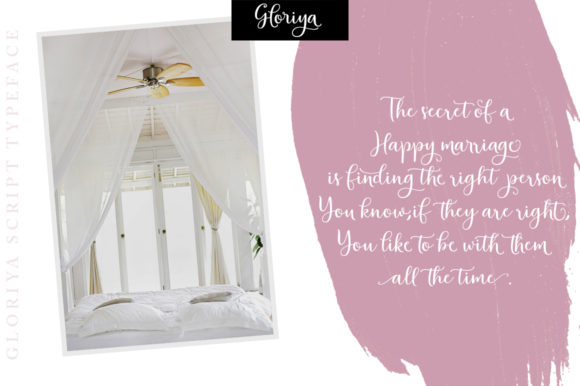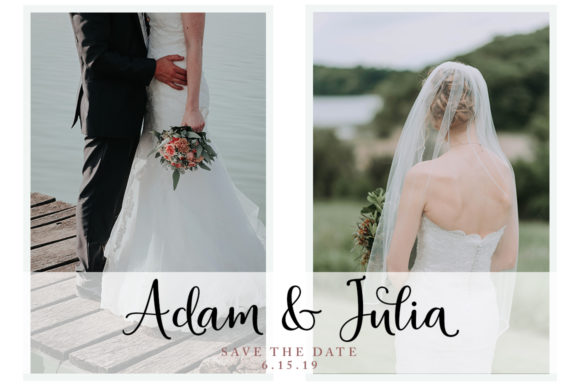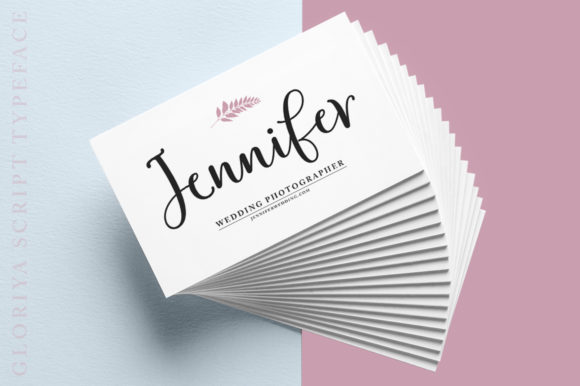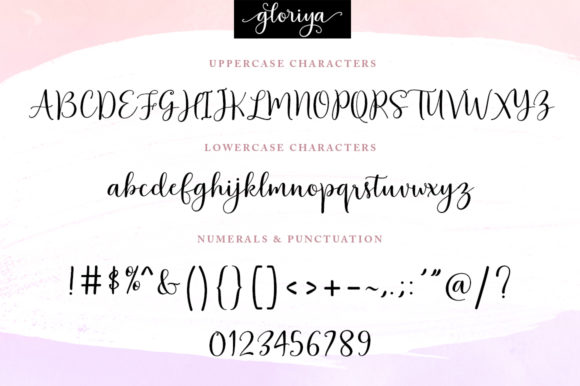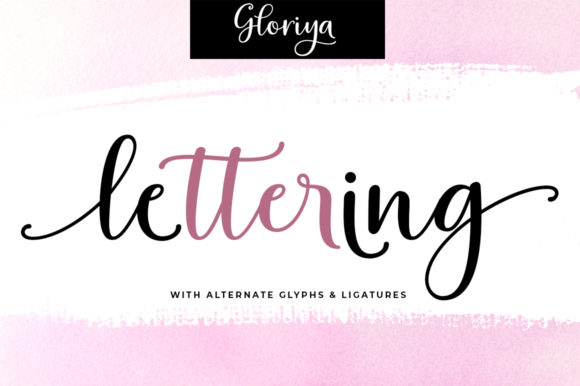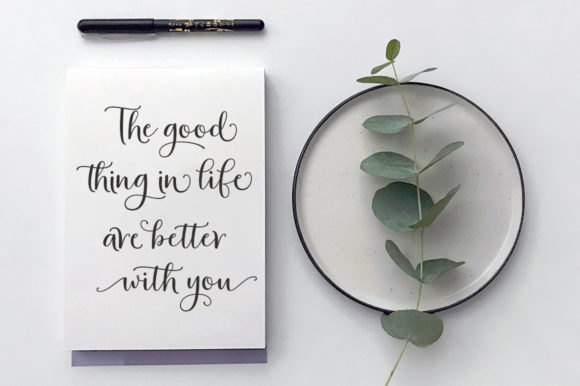
Gloriya Font: The Sweet and Soft Hand-Lettered Script Font for Your Creative Projects
Are you looking for a font that can add a touch of elegance and sweetness to your creative projects? Look no further than Gloriya Font, a beautiful hand-lettered script font that is perfect for a variety of applications. In this article, we’ll take a closer look at Gloriya Font, its features, and how you can use it to create stunning wedding invitations, stationery art, social media posts, and greeting cards.
What is Gloriya Font?
Gloriya Font is a sweet, soft hand-lettered script font that is designed to give your projects an authentic feel. Its delicate and flowing lines make it perfect for creating beautiful and elegant designs that will capture the attention of your audience. Whether you’re a designer, crafter, or DIY enthusiast, Gloriya Font is a great addition to your font collection.
Features of Gloriya Font
Gloriya Font comes with a range of features that make it easy to use and versatile. Some of its key features include:
- PUA Encoding: Gloriya Font is PUA encoded, which means you can access all of the cute glyphs and swashes with ease. This makes it easy to customize your designs and add a personal touch.
- Alternate Glyphs and Ligatures: The font features a wealth of special features, including alternate glyphs and ligatures. These allow you to create unique and varied designs that will stand out from the crowd.
- Hand-Lettered Script: Gloriya Font is a hand-lettered script font, which gives it a personal and authentic feel. Its soft and delicate lines make it perfect for creating beautiful and elegant designs.
Using Gloriya Font for Your Creative Projects
Gloriya Font is a versatile font that can be used for a variety of creative projects. Here are some ideas to get you started:
Wedding Invitations
Gloriya Font is perfect for creating beautiful and elegant wedding invitations. Its delicate lines and flowing script make it ideal for formal and informal wedding invitations alike. You can use it to create custom invitations that reflect the couple’s personality and style.
Stationery Art
Gloriya Font is also great for creating beautiful stationery art. You can use it to create custom notebooks, journals, and planners that are both functional and decorative. Its elegant lines and flowing script make it perfect for adding a touch of sophistication to your stationery.
Social Media Posts
Gloriya Font can also be used to create eye-catching social media posts. Its unique and varied designs make it perfect for creating custom graphics, quotes, and inspirational messages. You can use it to add a personal touch to your social media posts and make them stand out from the crowd.
Greeting Cards
Finally, Gloriya Font is perfect for creating cute and personalized greeting cards. Its delicate lines and flowing script make it ideal for creating custom birthday cards, thank you cards, and holiday cards. You can use it to add a touch of elegance and sophistication to your greeting cards.
Tips for Using Gloriya Font
Here are some tips for using Gloriya Font in your creative projects:
- Experiment with Different Sizes and Colors: Gloriya Font looks great in a variety of sizes and colors. Experiment with different combinations to find the one that works best for your project.
- Use it with Other Fonts: Gloriya Font can be paired with other fonts to create interesting and unique designs. Try pairing it with a bold font for a striking contrast.
- Take Advantage of PUA Encoding: Gloriya Font’s PUA encoding makes it easy to access all of the cute glyphs and swashes. Take advantage of this feature to add a personal touch to your designs.
Gloriya Font is a beautiful and versatile hand-lettered script font that is perfect for a variety of creative projects. Its delicate lines, flowing script, and range of features make it ideal for creating stunning wedding invitations, stationery art, social media posts, and greeting cards. Whether you’re a designer, crafter, or DIY enthusiast, Gloriya Font is a great addition to your font collection.